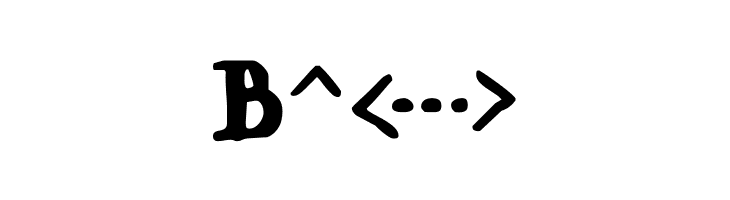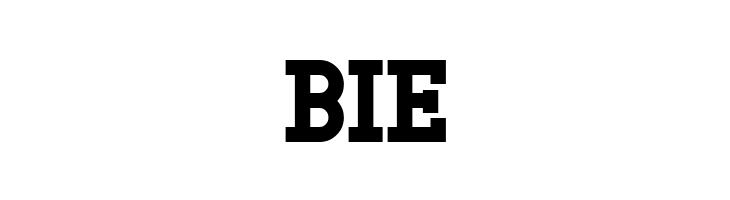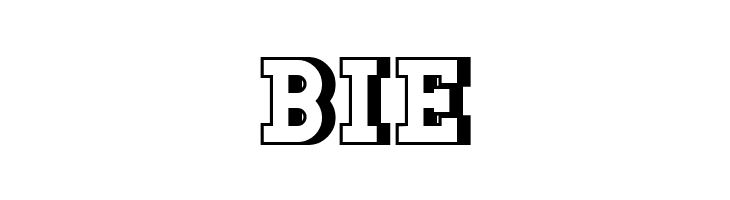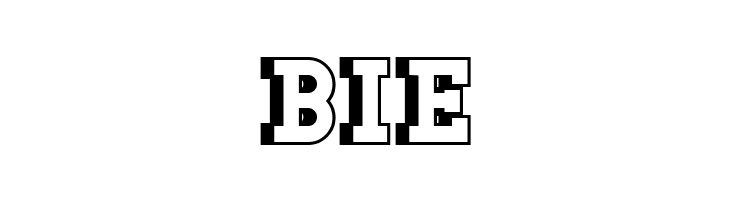
A playful, informal handwritten font with quirky, irregular strokes.
A playful, casual handwritten font with bold, expressive strokes.
A playful, handwritten font with fluid and organic letterforms.
A playful, casual handwritten font with smooth, rounded strokes.
A playful, hand-drawn font with bold, irregular strokes.
A playful, whimsical handwritten font with tall, narrow letters and irregular strokes.
A casual, friendly handwritten font with smooth, flowing strokes.
A playful, bold font with a whimsical and dynamic style.
A playful, casual handwritten font with fluid, irregular strokes.
A playful, rounded font with smooth curves and a friendly aesthetic.
A playful, casual handwritten font with uneven strokes and a dynamic appearance.
A playful handwritten font with a casual and friendly style.
A bold, artistic font with flowing lines and Art Nouveau influences.
A distressed, vintage-style font with a tall, narrow appearance and a handcrafted feel.
A classic blackletter font with ornate, angular designs and a medieval aesthetic.
A bold, gothic-style font with sharp angles and thick strokes, ideal for dramatic headlines.
A bold, vintage-style serif font with high contrast and a distressed texture.
A bold, distressed font with a rugged, vintage appearance.
A classic serif font with elegant curves and a traditional feel.
Ornate, decorative Arabic calligraphic script with heavy embellishments.
A playful, handwritten font with decorative, flowing strokes.
A playful, hand-drawn font with bold, irregular shapes and a casual style.
A classic serif font with elegant curves and a refined, sophisticated appearance.
A modern, geometric font with clean lines and uniform stroke width.
A modern, geometric font with bold, clean lines and a structured appearance.